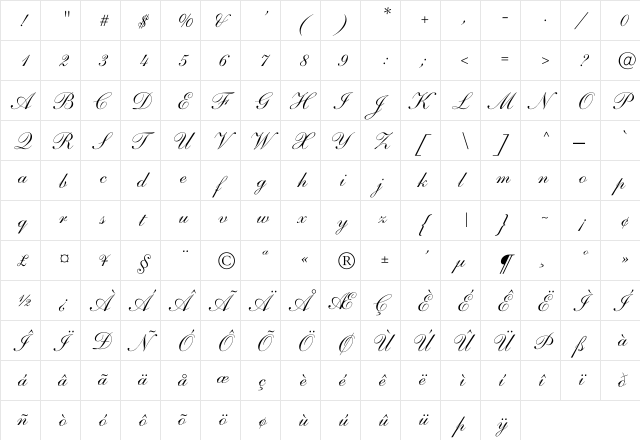
Augustinian Italic
Design Context for Augustinian Typeface
Augustinian is a composed and adaptable typeface that performs quietly and consistently across a wide range of design contexts. The dynamic lean of this cut emphasises speed and emphasis in any layout.